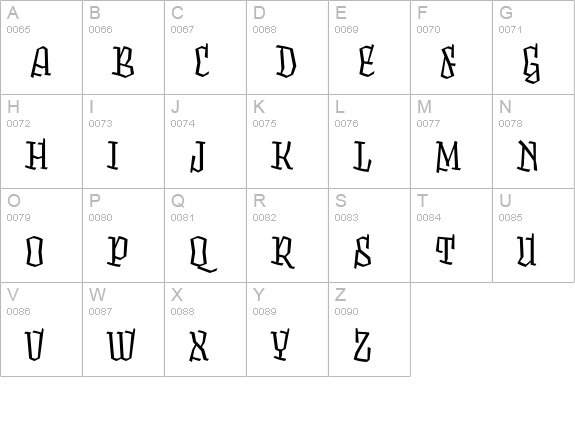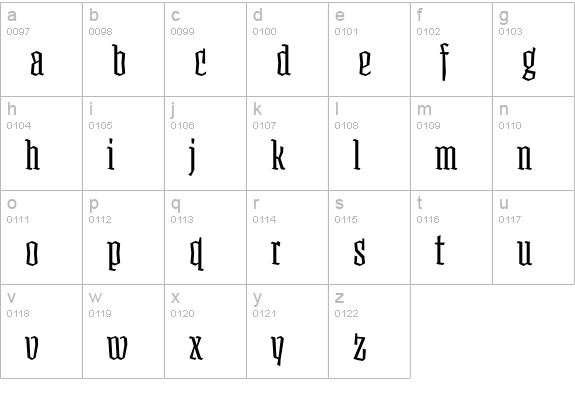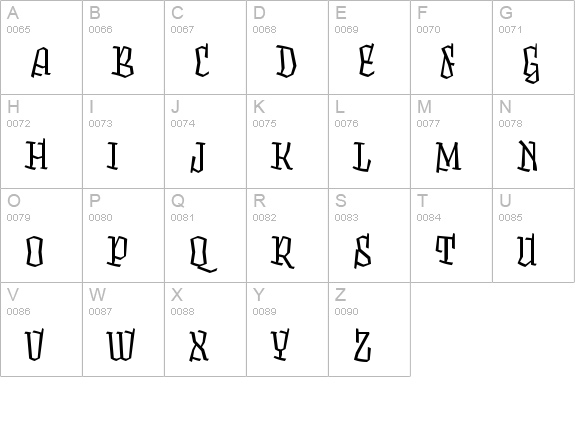
Fakir Display Regular Cnd Font Details
Fakir Display Regular Cnd is the standard, neutral variant in the Fakir typeface family \xE2\x80\x94 well suited to general body text, paragraphs, and standard typographic work.
Fakir Display Regular Cnd font is a sleek and elegant typeface that exudes a sense of sophistication and modernity. With its clean lines and unique shapes, this font is perfect for creating eye-catching designs that command attention. The tall, narrow letterforms give Fakir Display a distinct look that is both stylish and versatile. What makes Fakir Display Regular Cnd font even more appealing is that it is available for free download at FontsMarket.com. This means you can easily access this stunning font and use it in your projects without any cost. Whether you're designing a logo, poster, website, or any other creative project, Fakir Display will elevate your work with its contemporary aesthetic and impeccable craftsmanship. Don't miss out on the opportunity to enhance your designs with Fakir Display Regular Cnd font. Download it for free today at FontsMarket.com and see how this sophisticated typeface can take your projects to the next level.